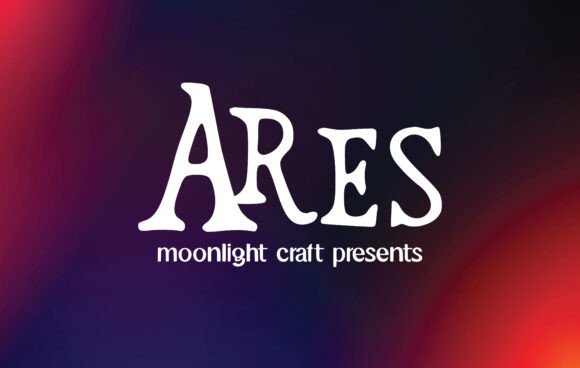
The Ares Font: Elevate Your Designs with Elegance and Sophistication
I’ll never forget the moment I stumbled upon the Ares font. I was working on a branding project for a luxury client, and I was struggling to find the perfect serif font that exuded elegance and sophistication. The client wanted a logo that would make their brand stand out in a crowded market, and I was determined to deliver. That’s when I discovered Ares, and it instantly became my go-to font for the project. In this article, I’ll share with you why Ares is a game-changer for designers, crafters, and creative hobbyists alike.
An Honest Review of Ares Font
What I Love About Ares Font
- ✨ Beautifully crafted serifs: Ares boasts stunning serifs that add a touch of luxury to any design.
- ✅ Highly versatile: This font is perfect for creating eye-catching logos, branding, quotes, and more.
- 💡 Inspires creativity: Ares has a way of sparking imagination, making it easier to come up with innovative design ideas.
- 📈 Scalable: Whether you’re designing a business card or a billboard, Ares looks great at any size.
While Ares is an exceptional font, there are a few minor quirks to be aware of:
- 🤔 Limited availability of certain characters: Some special characters may not be available in Ares, which could be a limitation for certain projects.
- ⚠️ May not be suitable for body text: Due to its elegant serifs, Ares might not be the best choice for lengthy body text. It’s better suited for headings, titles, and short paragraphs.
- Experiment with OpenType features, such as ligatures and stylistic alternates, to add visual interest to your design.
- Take advantage of OpenType features, such as glyphs and stylistic alternates, to add depth and character to your design.
The Backstory of Ares Font
The Ares font was designed with the intention of creating a beautiful and elegant serif font that would inspire creativity and sophistication. The designer aimed to craft a font that would be versatile and highly legible, making it perfect for a wide range of design projects. While the designer’s true identity remains a mystery, their passion for typography and design is evident in every detail of Ares.
Q: What type of projects is Ares best suited for?
A: Ares is ideal for creating eye-catching logos, branding, quotes, and other designs that require elegance and sophistication.
Q: Is Ares a difficult font to read?
A: No, Ares is highly legible and easy to read, making it suitable for a wide range of design projects.